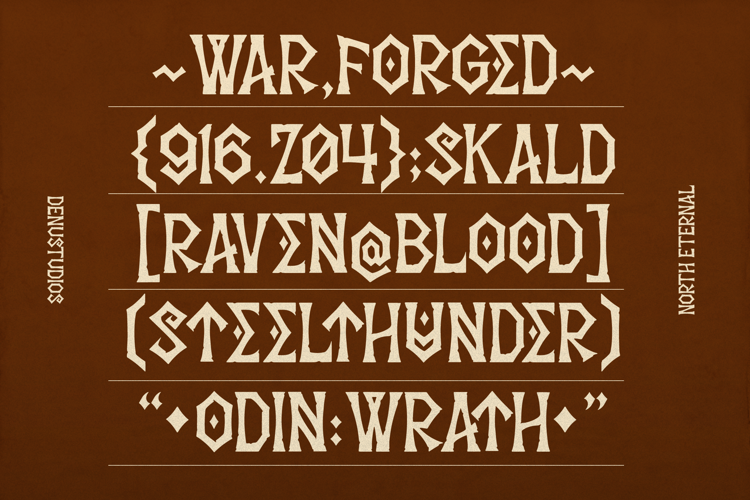
North Eternal Font
North Eternal | Runic Display Font product packaging, mugs, quotes, posters, shopping bags, t-shirts, book covers, name card, invitation cards, greeting cards, label, photography, watermark, special events, and all your other lovely projects that need a Runic taste.